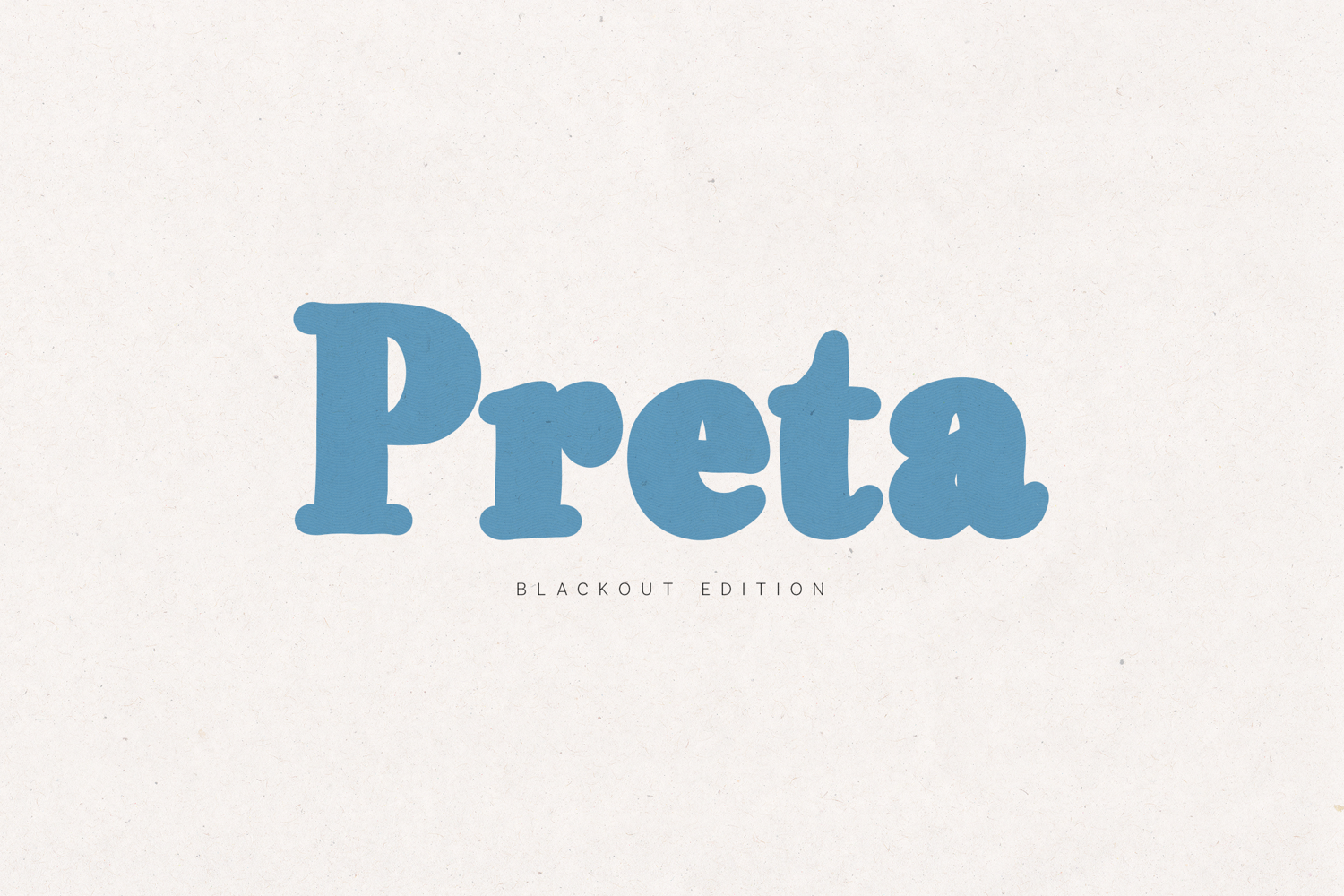
Preta Blackout Bold Retro Serif Font
Preta Blackout is a bold, soft-edged retro serif designed to make statements.
It blends vintage warmth with playful confidence, creating a strong yet approachable typographic voice.
With its rounded slab-inspired forms, smooth curves, and distinctive character details, Preta Blackout is perfect for branding, packaging, editorial design, posters, merchandise, social media graphics, and bold headlines.
The typeface carries a nostalgic tone while remaining clean and modern enough for contemporary design projects.
Preta Blackout works beautifully for:
• Retro branding
• Bold logo design
• Statement typography
• Packaging design
• Apparel graphics
• Social media visuals
• Posters & editorial layouts
Designed to stand out. Built to be remembered.